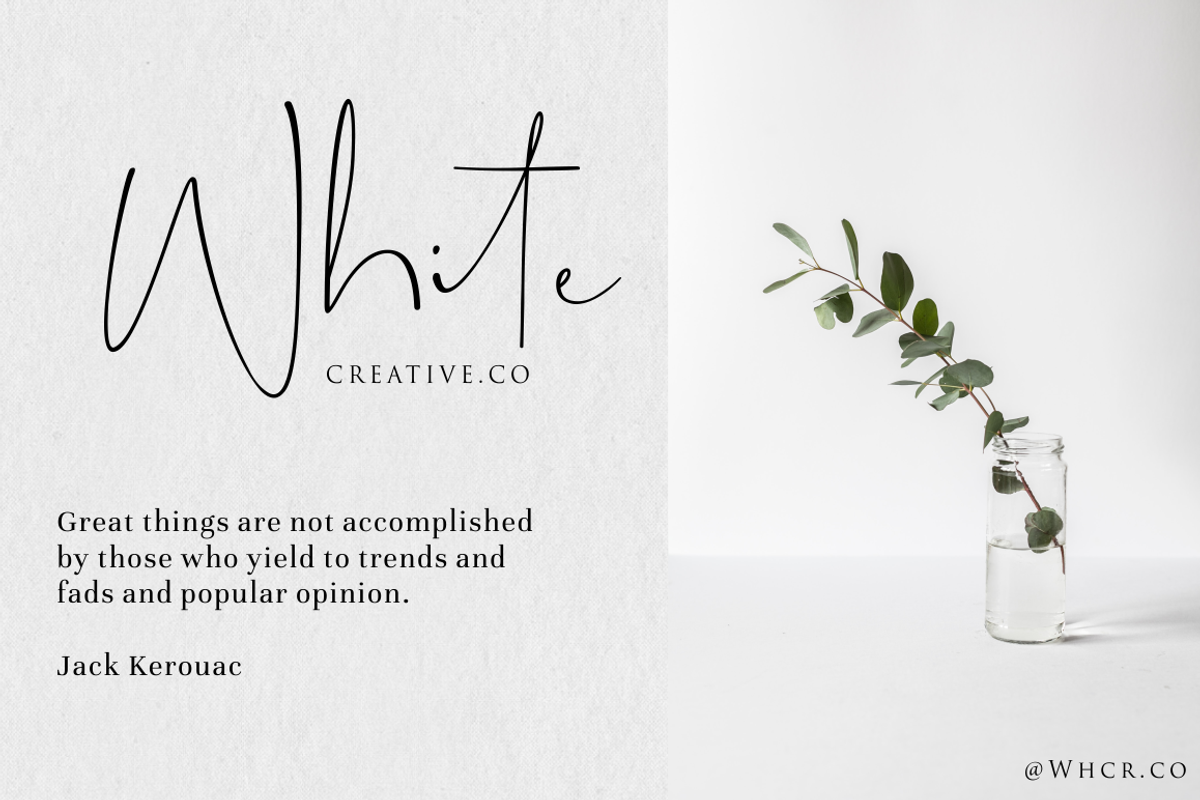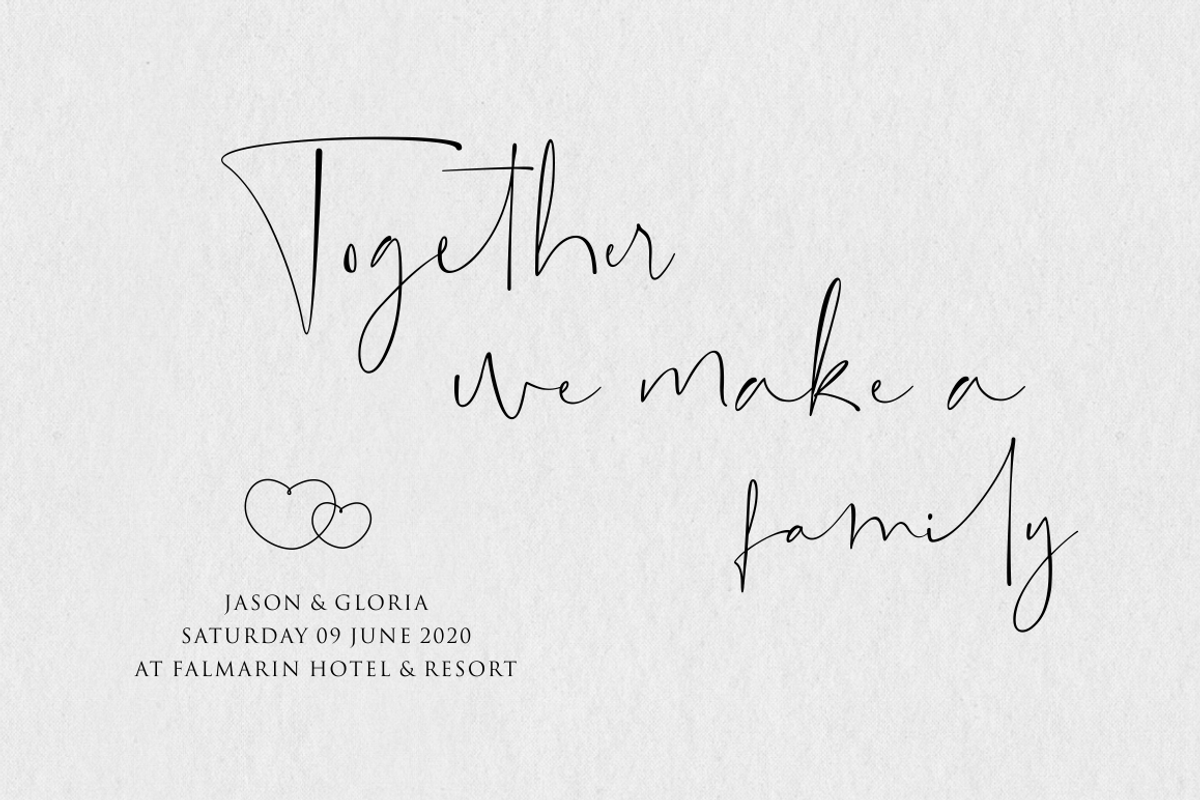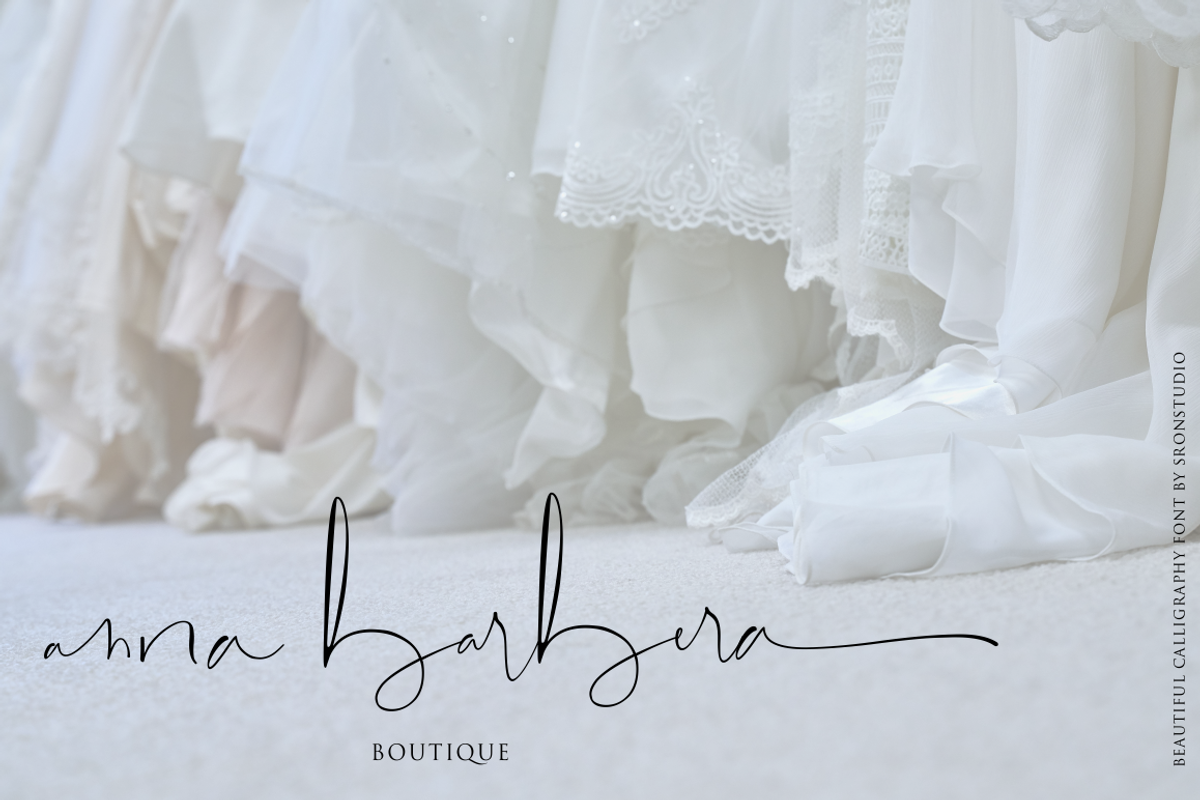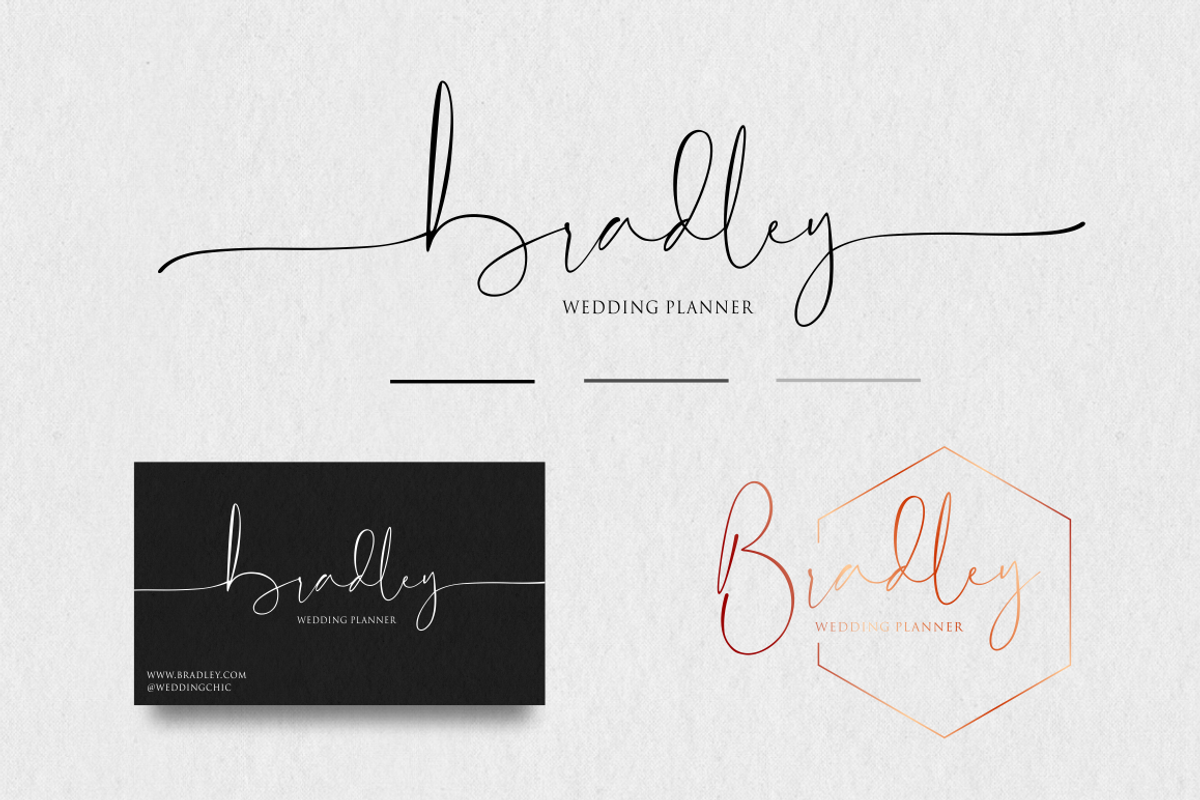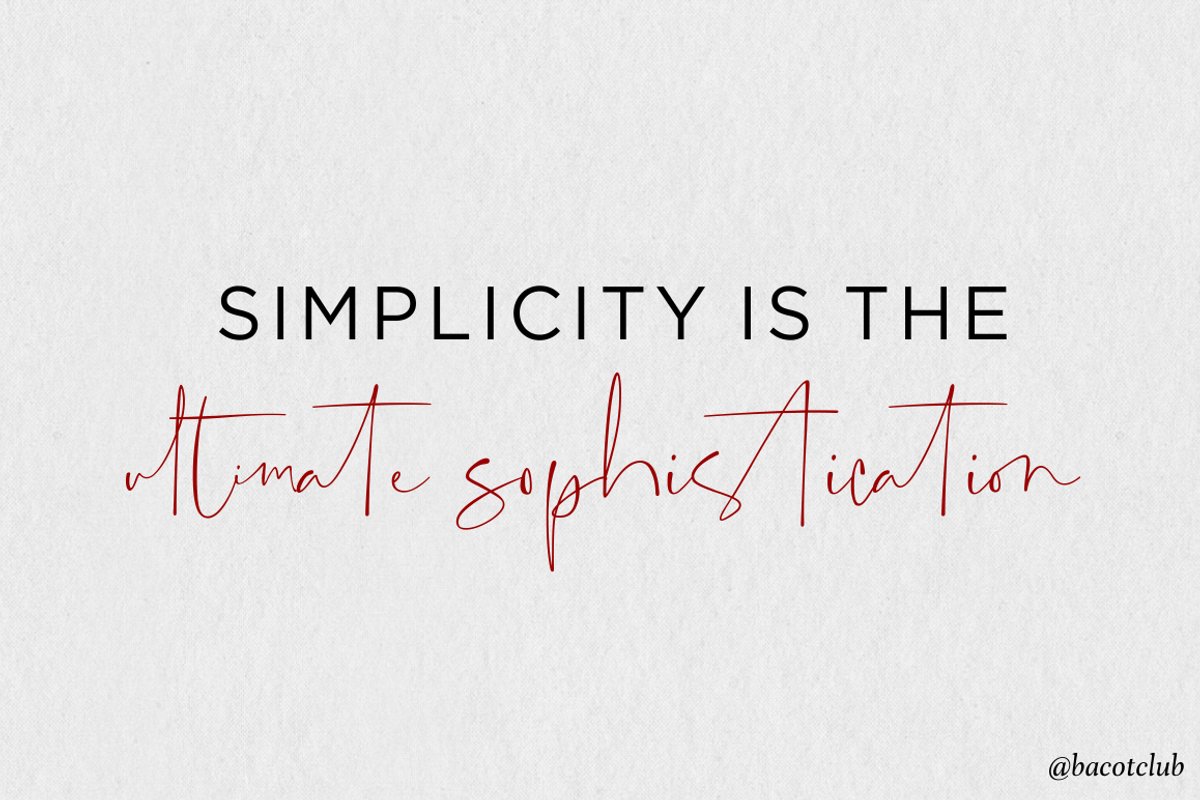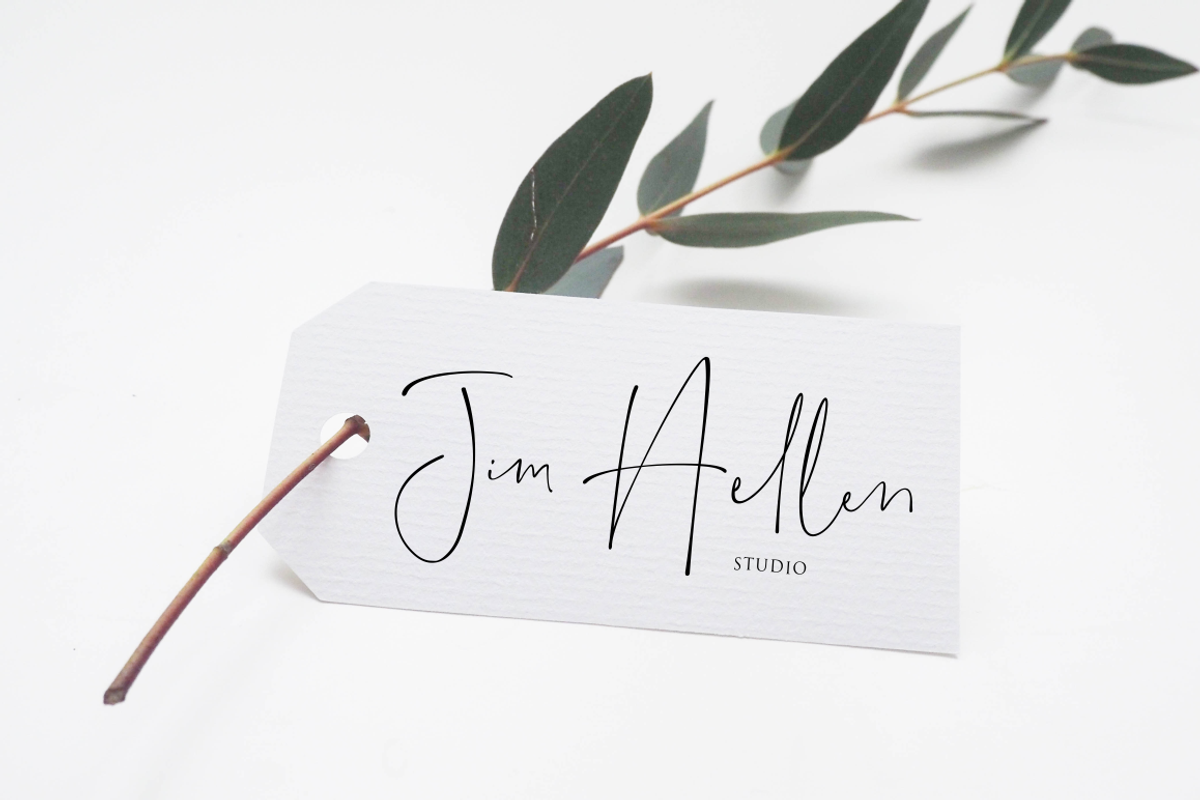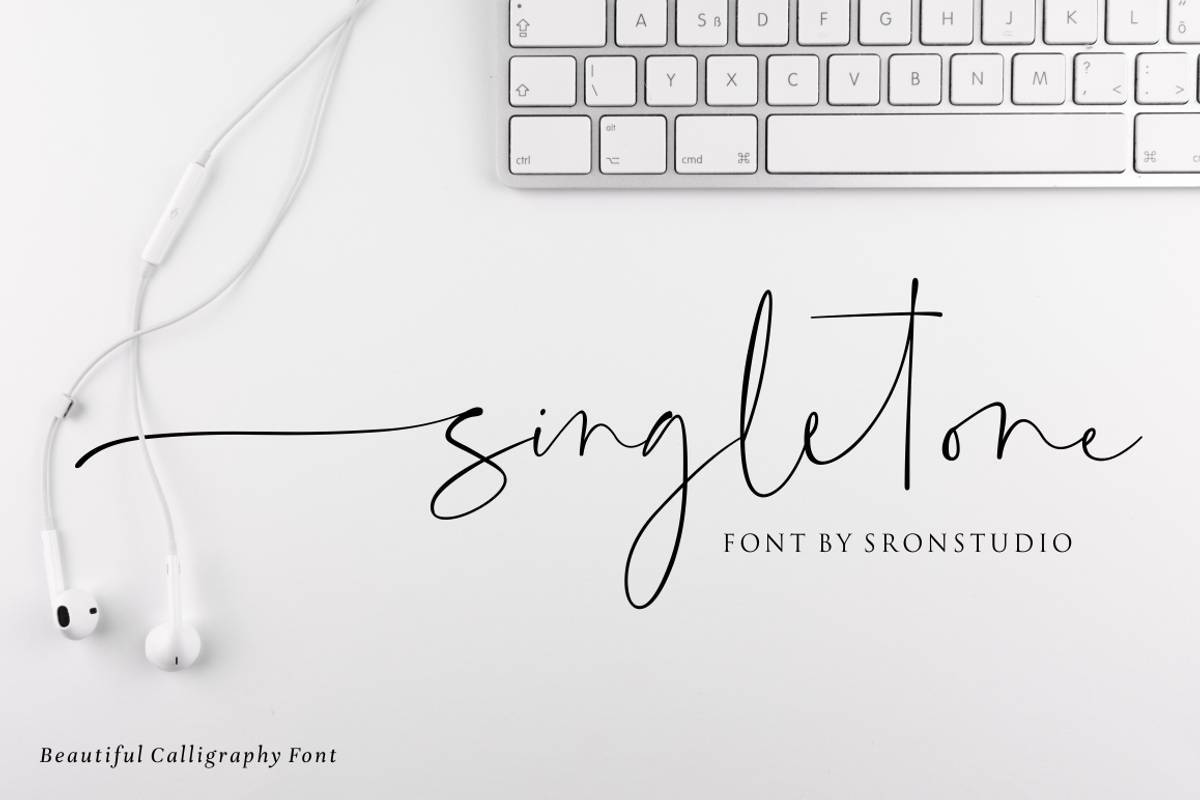
Singletone - Beautiful Font
Introducing Singletone - Beautiful Font
Singletone is a beautiful calligraphy font perfect for branding, invitation, stationery, wedding designs, social media posts, advertisements, product packaging, product designs, label, photography, watermark, special events or anything.
- Singletone comes with full set of uppercase and lowercase letters, beautiful ligatures,multilingual symbols, numerals and punctuation.
Why Singletone - Beautiful Font is worth a look
Singletone - Beautiful Font by Sronstudio fits naturally into Branding, posters, packaging, typography.